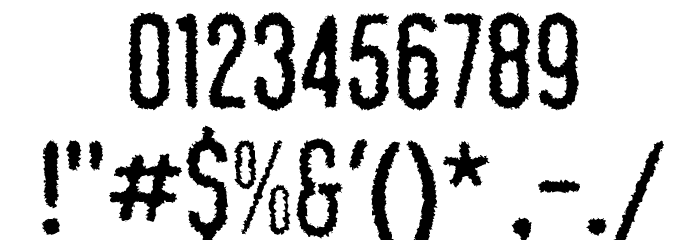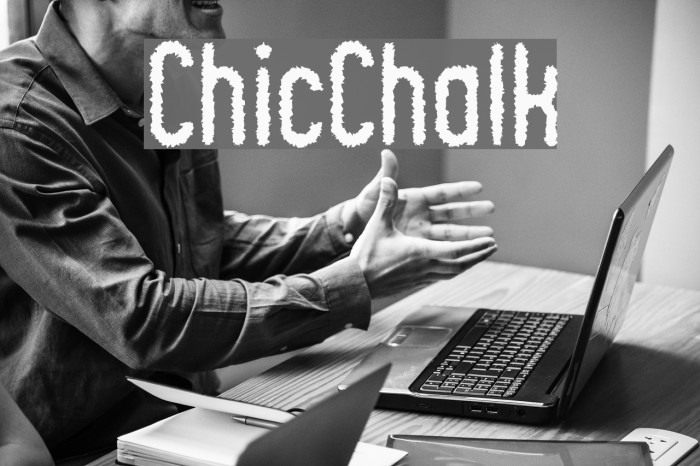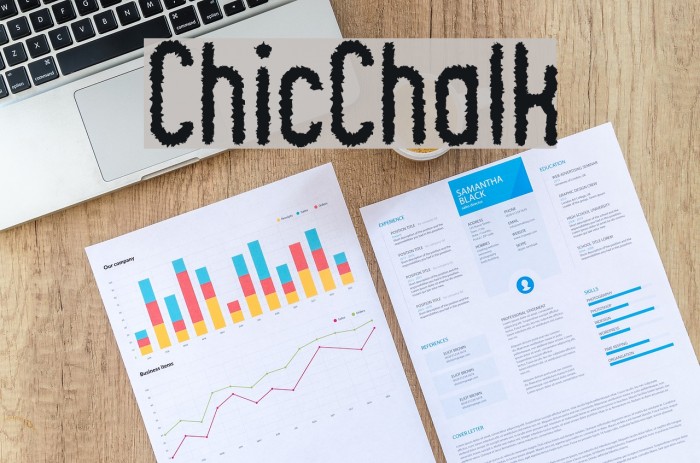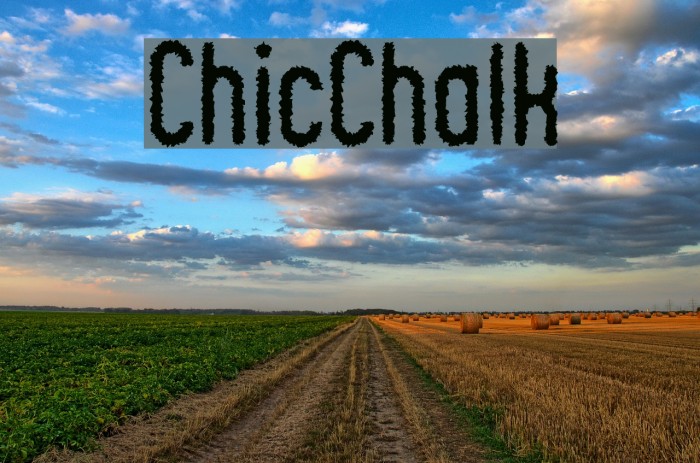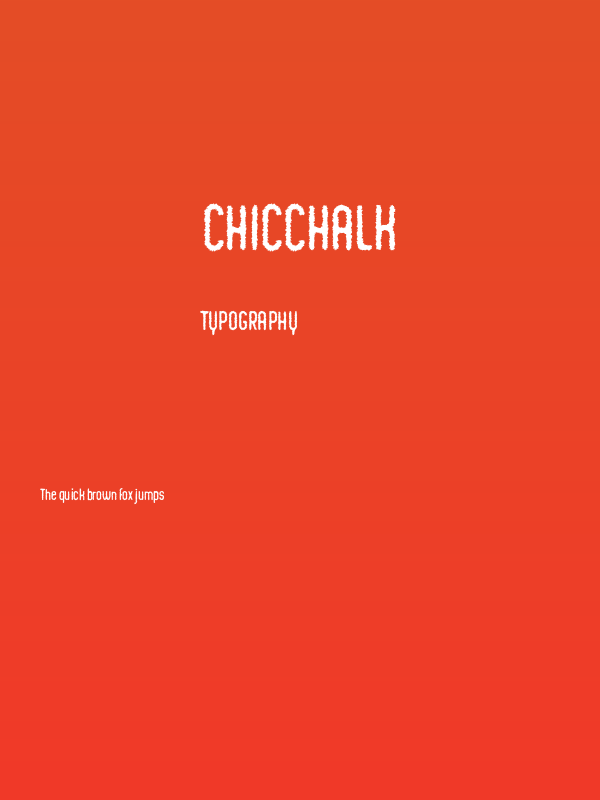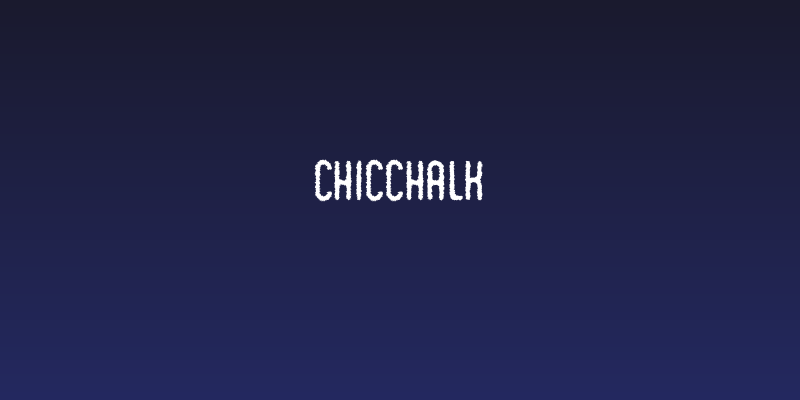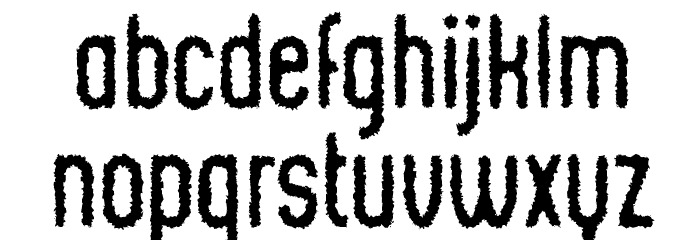
ChicChalk Font
ChicChalk Description
This font features a playful and textured design, reminiscent of chalk writing on a blackboard. Each character is crafted with a rough, hand-drawn appearance, giving it a unique and informal style. The uppercase and lowercase letters maintain a consistent height, while the numbers and special characters are designed to match the overall aesthetic. The texture adds a sense of depth and dimension, making it ideal for creative and casual projects. Its distinctive look is both approachable and artistic, perfect for adding a touch of whimsy to any design.
| Overall Style | Playful, Artistic |
| Use Case | Headlines, Creative projects, Informal designs |
| Proposed Projects | Ideal for educational materials, children's books, playful branding, and creative posters. |